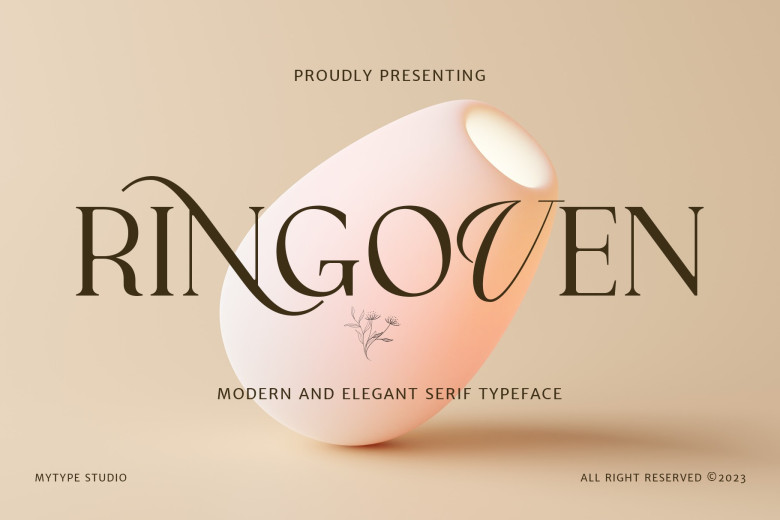
Ringoven Font
Ringoven belongs to Serif collection font with natural movement make looks elegant, classy, and beauty for your project. This font is well suited for branding activities, logotype, a wedding design, social media, ads, packaging, the product name, labels, photos, watermarks, invitations, stationery, and any other projects that require handwriting style.
Ringoven Serif Font